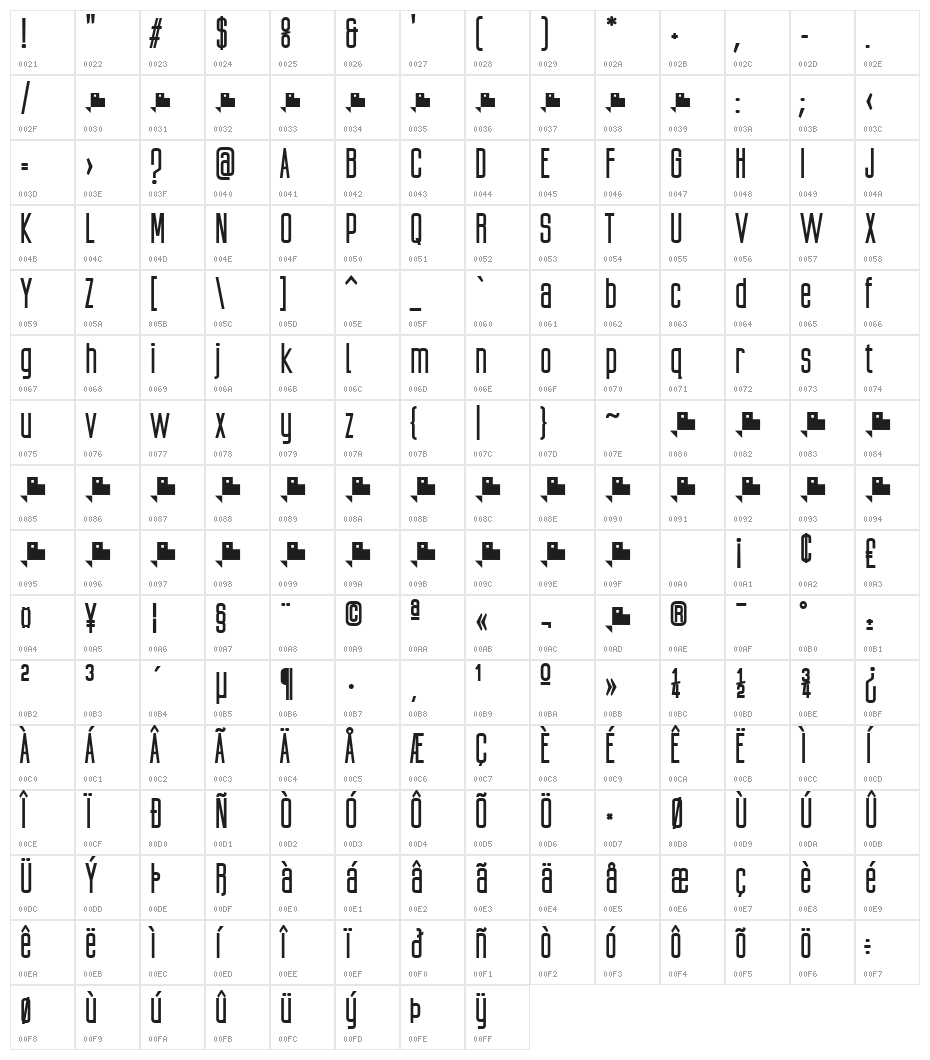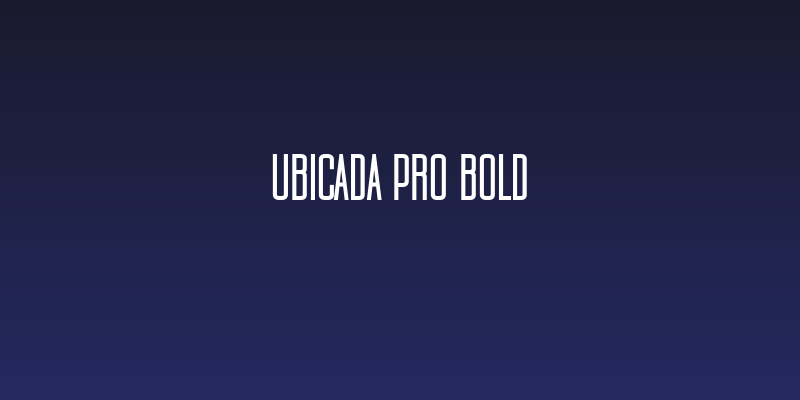
Ubicada Pro Bold Font
Ubicada Pro Bold Description
This font features a modern and sleek design with tall, narrow characters. The uppercase and lowercase letters maintain a consistent height, contributing to a uniform appearance. The strokes are clean and straight, with minimal curves, giving it a geometric feel. The numerals and special characters follow the same design principles, ensuring a cohesive look across all glyphs. The overall style is contemporary, making it suitable for projects that require a modern and professional touch.
| Proposed Projects | Ideal for branding, advertising, and editorial design where a modern and professional appearance is desired. |